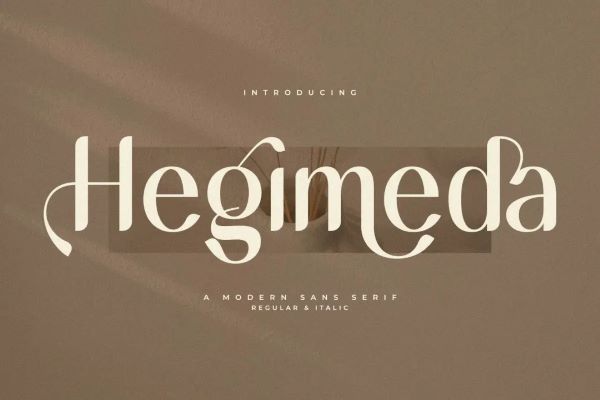
Hegimeda Font
Hegimeda Font is a Fashion Font by Storytype Studio with noble, stylish letterforms that carry timeless elegance and a chic visual authority capable of making any design feel refined and exclusive. Its luxury serif construction paired with sophisticated ligature details makes every word land with the kind of quiet confidence that high-end brands spend years trying to build.
A perfect selection for manager business cards, fashion magazines, spa branding, wedding stationery, luxury editorial, and any project where timeless style must take center stage. Browse our full library of Free Fonts and discover more elegant typefaces from independent designers worldwide.